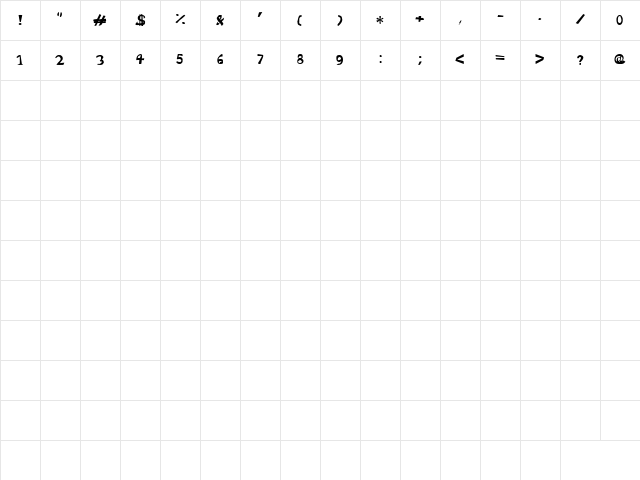
Dakick Regular Free Font
Dakick Regular
Design Context for Dakick
Dakick is a composed and adaptable typeface that performs quietly and consistently across a wide range of design contexts.